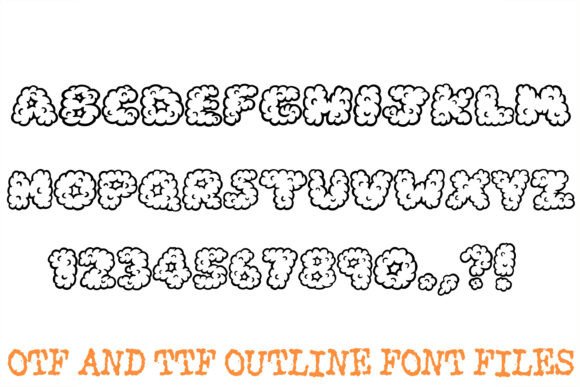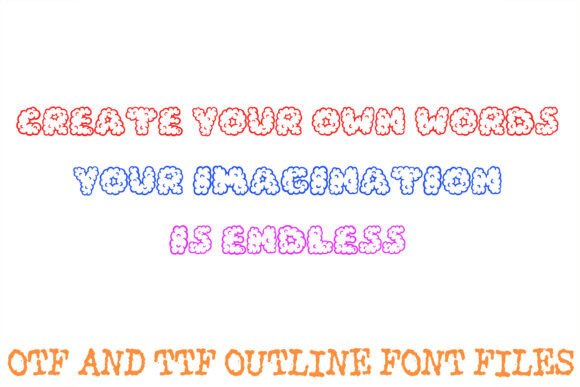
Introducing the Chunky Cloud Font: A Dreamy Display Typeface
Are you a designer or crafter looking for a font that captures the essence of whimsy and imagination? Look no further than the Chunky Cloud Font, a high-energy display typeface that is sure to elevate your designs to new heights. Inspired by the soft, puffy texture of cumulus clouds, this font is perfect for creating eye-catching titles, nursery wall art, branding, and social media content that is both fun and engaging.
The Inspiration Behind the Chunky Cloud Font
The Chunky Cloud Font is designed to evoke the feeling of lightheartedness and imagination. Its thick, rounded “puff” outlines and playful hand-drawn texture give it a unique and distinctive look that is reminiscent of fluffy clouds on a sunny day. The font’s creator aimed to capture the sense of wonder and magic that comes with gazing up at the sky and watching the clouds drift lazily by.
The Chunky Cloud Font is an excellent choice for designers and crafters working on a variety of projects, including:
- Children’s book titles: Add a touch of whimsy and imagination to your book covers with this delightful font.
- Nursery wall art: Create beautiful and engaging wall art for nurseries with this font’s soft, puffy texture.
- Whimsical branding: Use the Chunky Cloud Font to create a brand identity that is both fun and memorable.
- Sky-themed social media content: Make your social media posts stand out with this font’s lighthearted and airy feel.
Key Features of the Chunky Cloud Font
The Chunky Cloud Font has several key features that make it an excellent choice for designers and crafters:
- Thick, rounded “puff” outlines: Give your designs a soft, cloud-like texture with these distinctive outlines.
- Playful hand-drawn texture: Add a touch of whimsy and personality to your designs with this font’s unique texture.
- High-impact aesthetic: Make a statement with this font’s bold, eye-catching design.
- Remarkable legibility: Despite its decorative nature, the Chunky Cloud Font is surprisingly legible, making it perfect for use in a variety of contexts.
Using the Chunky Cloud Font in Your Designs
The Chunky Cloud Font is incredibly versatile and can be used in a variety of design contexts. Here are a few ideas to get you started:
- Pair it with bold colors: The Chunky Cloud Font looks amazing when paired with bright, bold colors. Try using it with a pastel color palette for a soft, whimsical look.
- Use it for titles and headings: This font is perfect for use in titles and headings, where its bold, eye-catching design can really make an impact.
- Experiment with textures: The Chunky Cloud Font’s playful hand-drawn texture makes it a great choice for use with textured backgrounds or overlays.
The Chunky Cloud Font is a dreamy, high-energy display typeface that is sure to capture the hearts of designers and crafters alike. Its unique blend of whimsy, imagination, and playfulness makes it the perfect choice for a wide range of design projects, from children’s book titles to whimsical branding and social media content. With its thick, rounded “puff” outlines and playful hand-drawn texture, this font is sure to add a touch of magic to your designs.